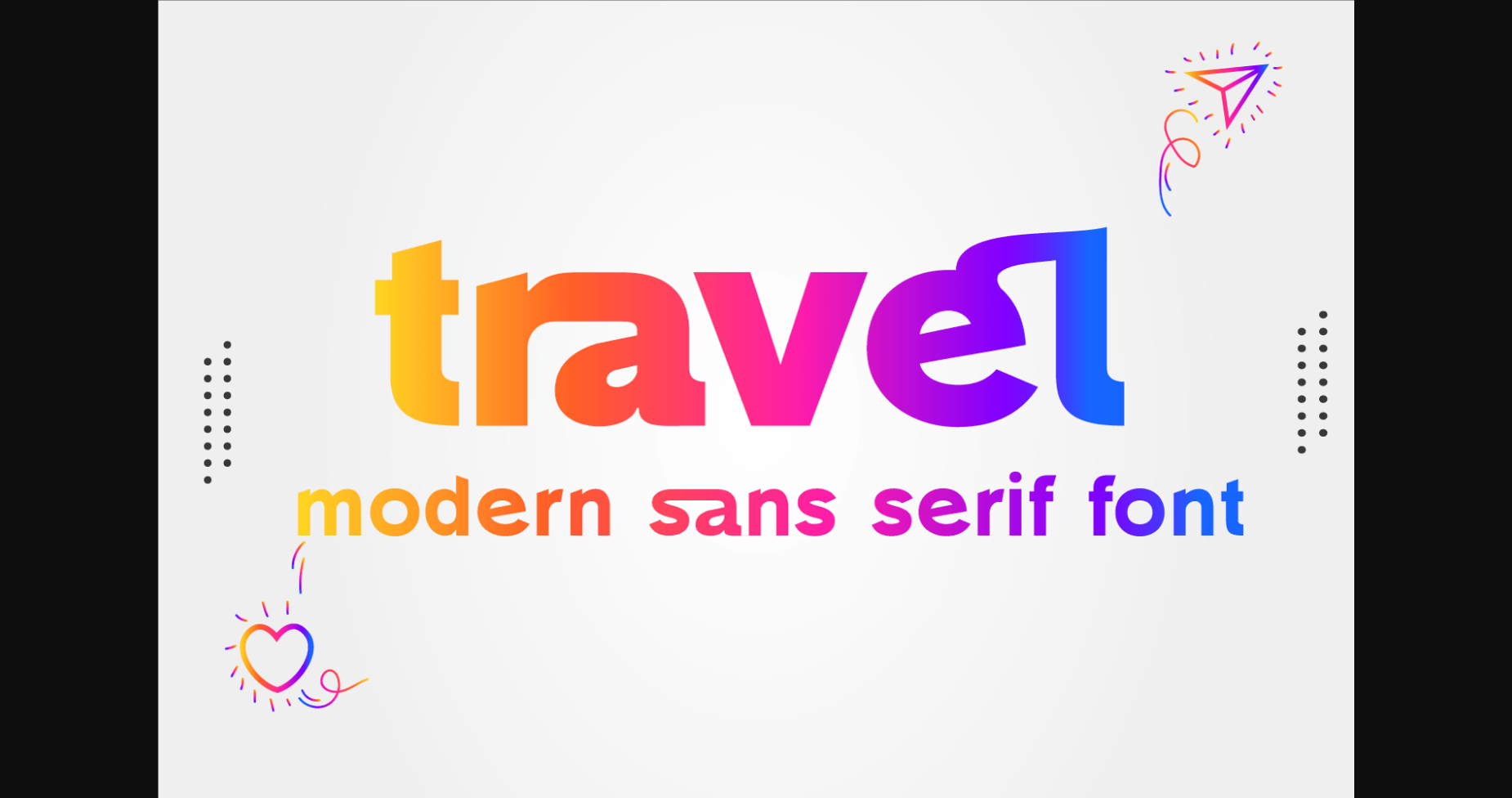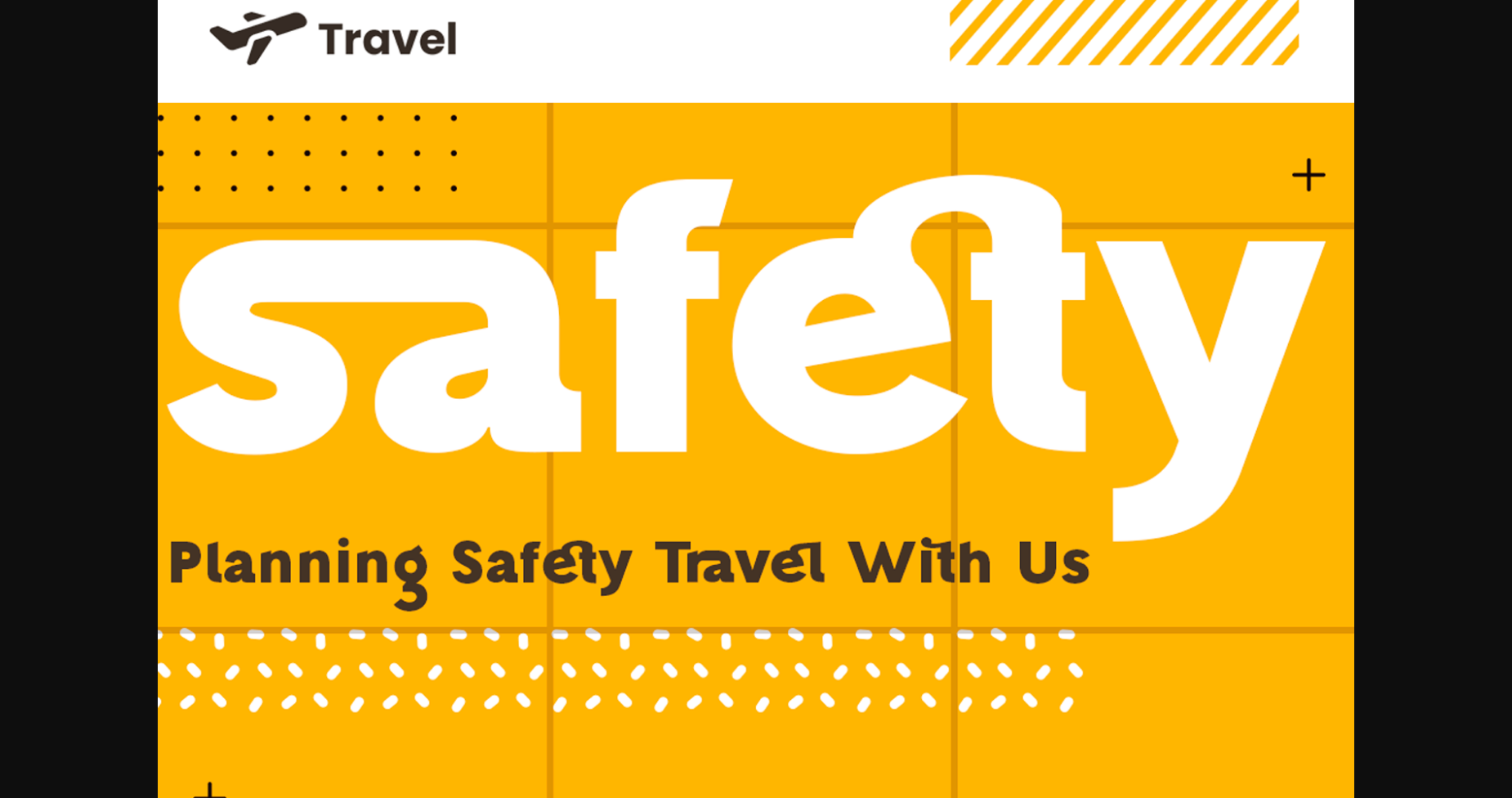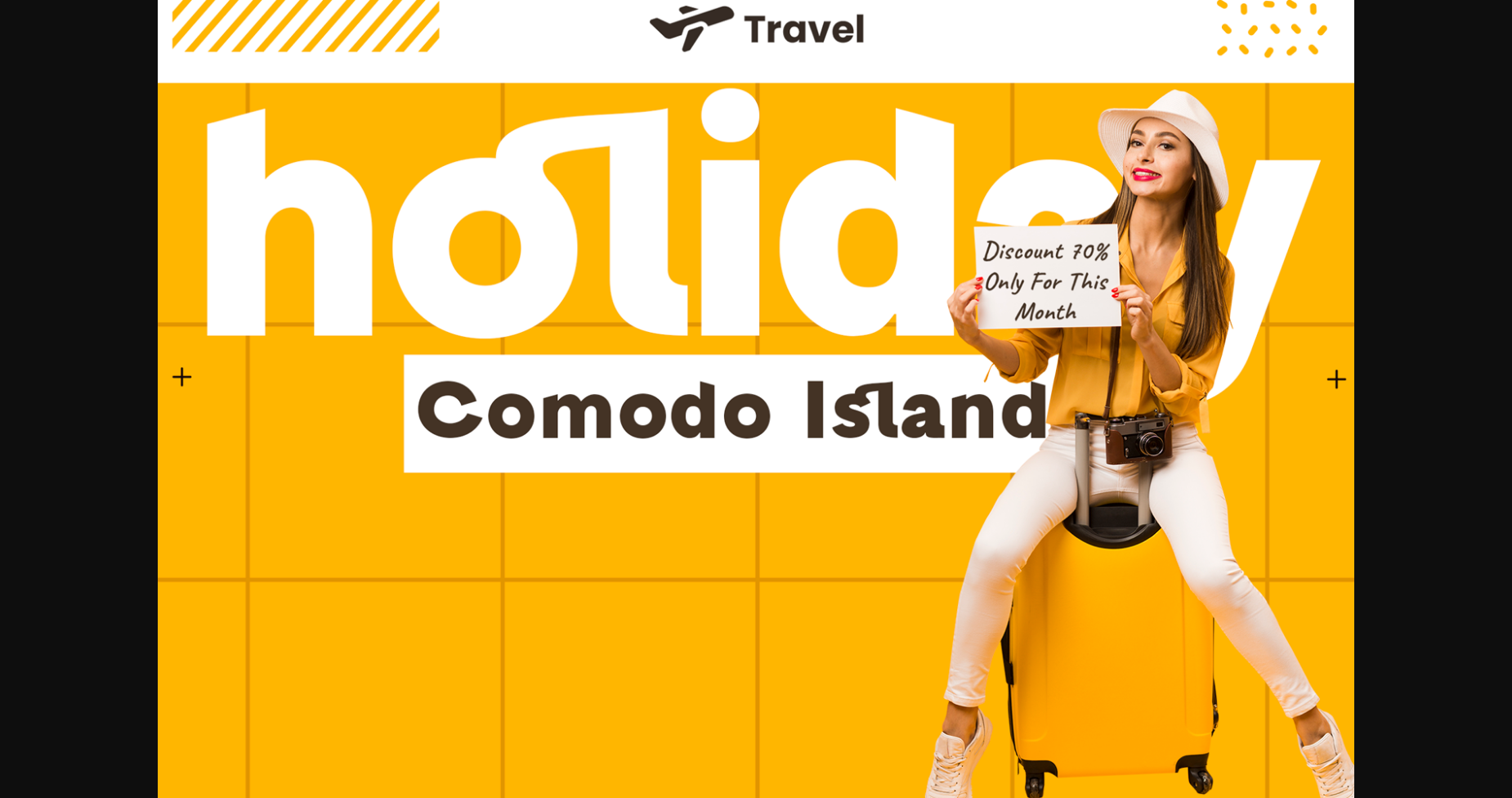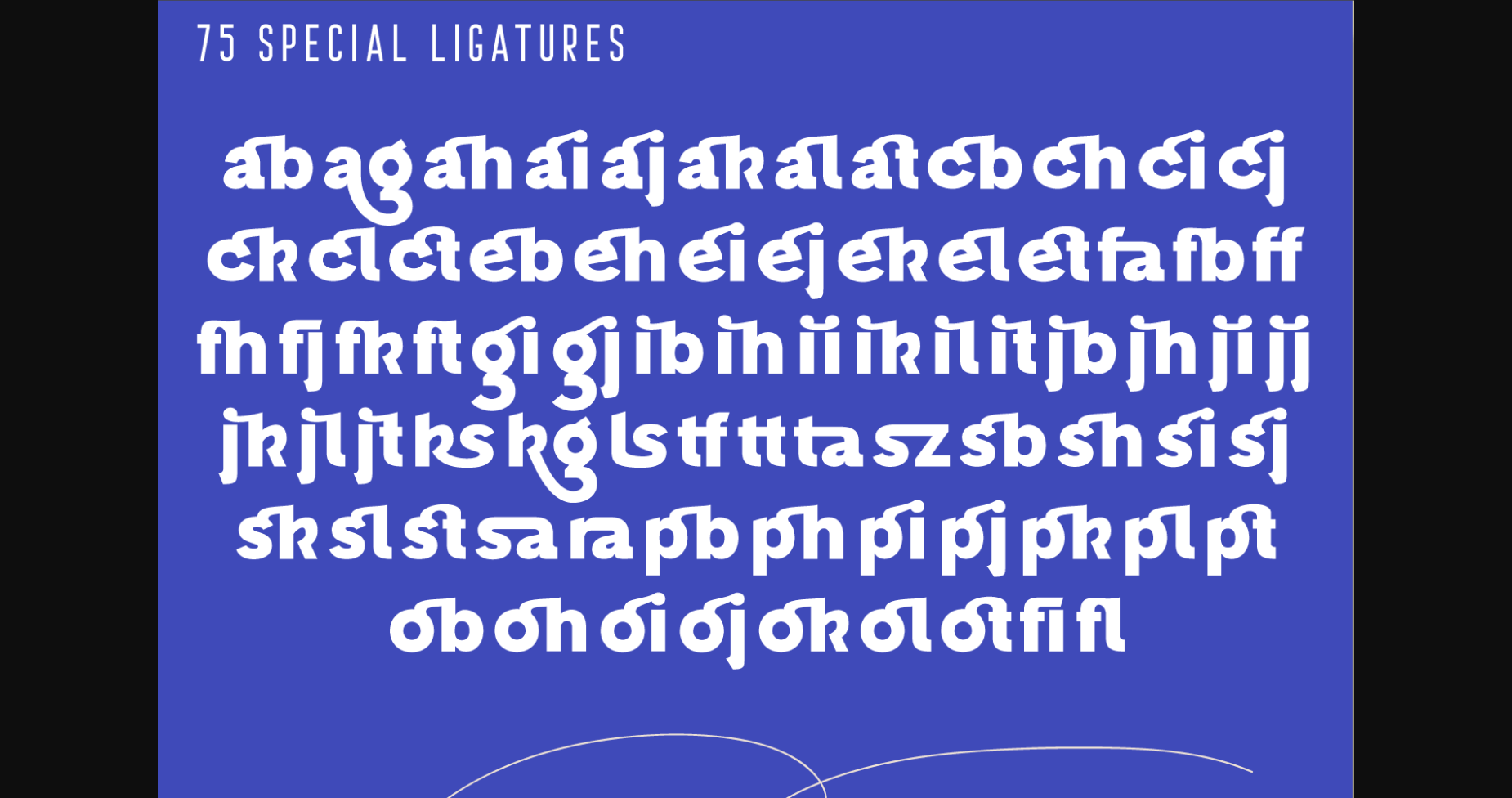
Travel Font
About Travel Font
Travel is a modern and stylish sans serif font with solemn characters and a unique neat style! It fits perfectly with logos, watermarks, product presentations, social media posts, marketing materials, branding, and many more projects! This font is PUA encoded which means you can access all of the glyphs and swashes with ease!